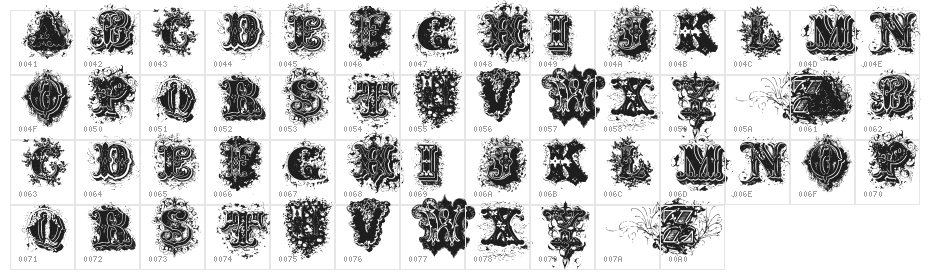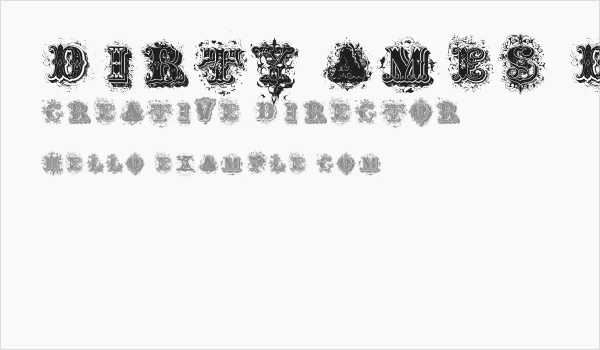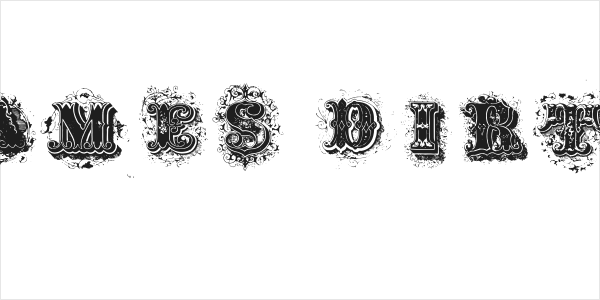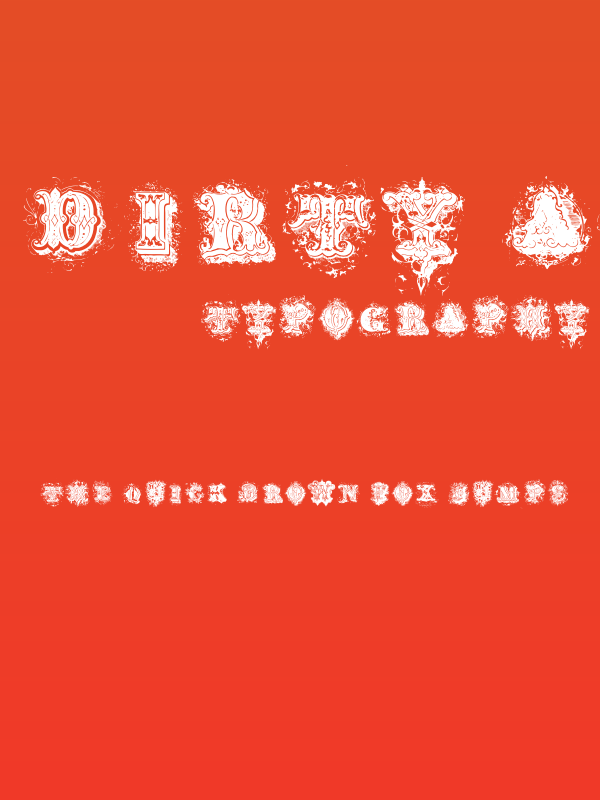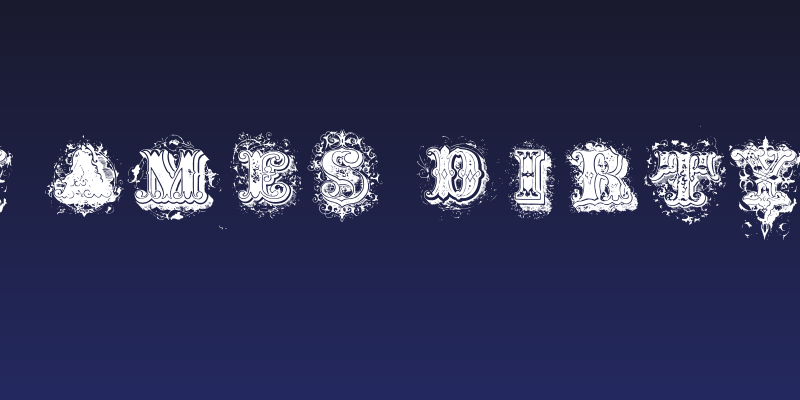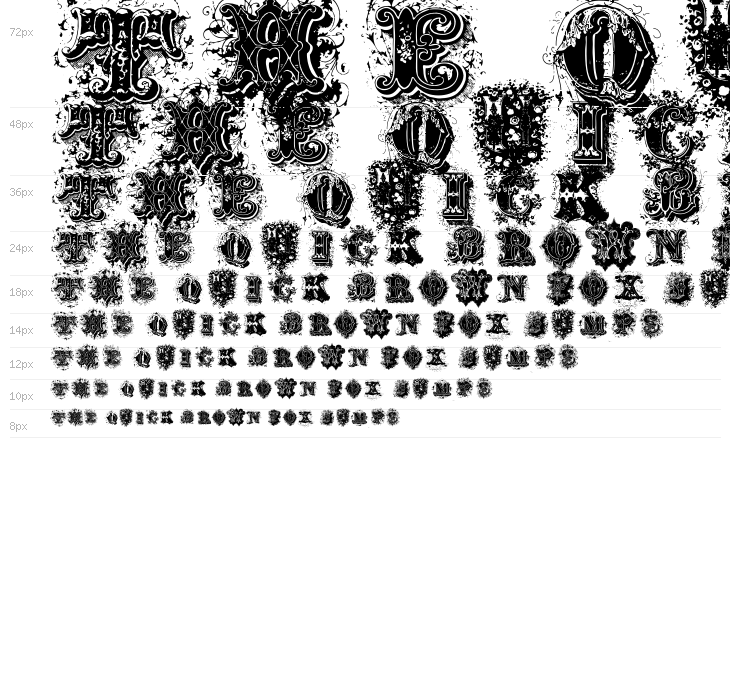
Dirty Ames Font
Dirty Ames Description
This font is a highly decorative and intricate typeface that features elaborate and ornate designs within each character. The letters are embellished with flourishes and detailed patterns, giving them a vintage and artistic appearance. The complexity of the design suggests a hand-crafted feel, with each letter appearing as a unique piece of art. The font's style is reminiscent of Victorian-era typography, with a strong emphasis on aesthetics and visual impact. It is not suited for body text due to its complexity but makes a bold statement in headlines or artistic projects.
| Proposed Projects | Ideal for vintage-themed posters, artistic projects, branding for luxury products, or any design requiring a touch of elegance and historical flair. |